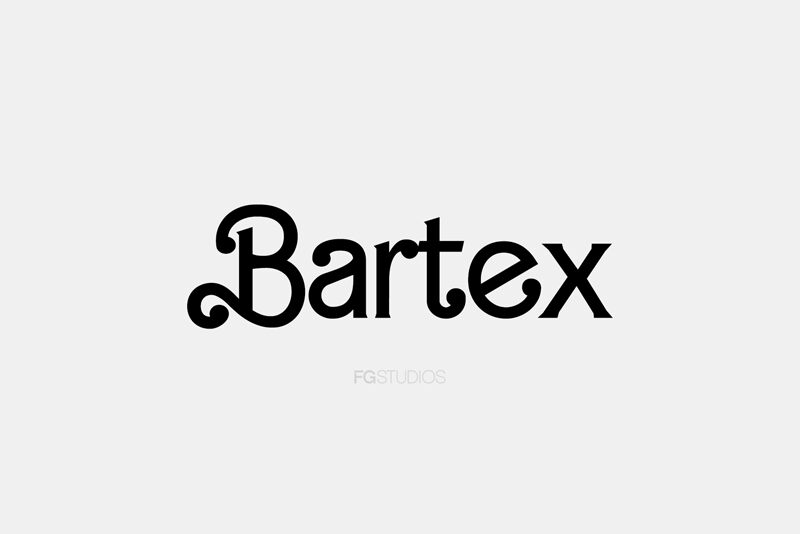
Bartex
Bartex, crafted by FG Studios, is a captivating display font that exudes a distinct retro charm. Its bold, sweeping curves and intricate detailing evoke a sense of vintage allure, harking back to the golden era of classic typography. The font's striking presence commands attention, making it an ideal choice for a wide range of design projects that seek to convey a nostalgic, yet modern aesthetic.
Bartex's versatility shines through its ability to seamlessly integrate into various design contexts, from eye-catching headlines and impactful logotypes to captivating poster designs and product branding. Its robust, attention-grabbing nature lends itself well to applications that require a strong, memorable visual impact, such as in the realm of advertising, packaging, and editorial layouts.